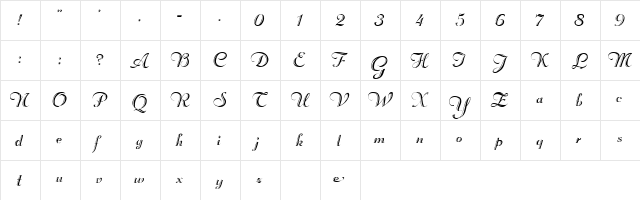
Phoenican Script
| Style | Script |
Design Context for Phoenican Typeface
Phoenican brings a calligraphic fluidity to the page — its connecting strokes and expressive curves give it an unmistakably human quality.
Font Pairing: Combine Phoenican with a simple geometric sans for maximum contrast — the tension between flowing curves and clean structure is a classic typographic pairing.
Pro Tip: Pair Phoenican with a clean sans-serif for supporting text. The contrast between fluid script and geometric structure creates an elegant typographic hierarchy.